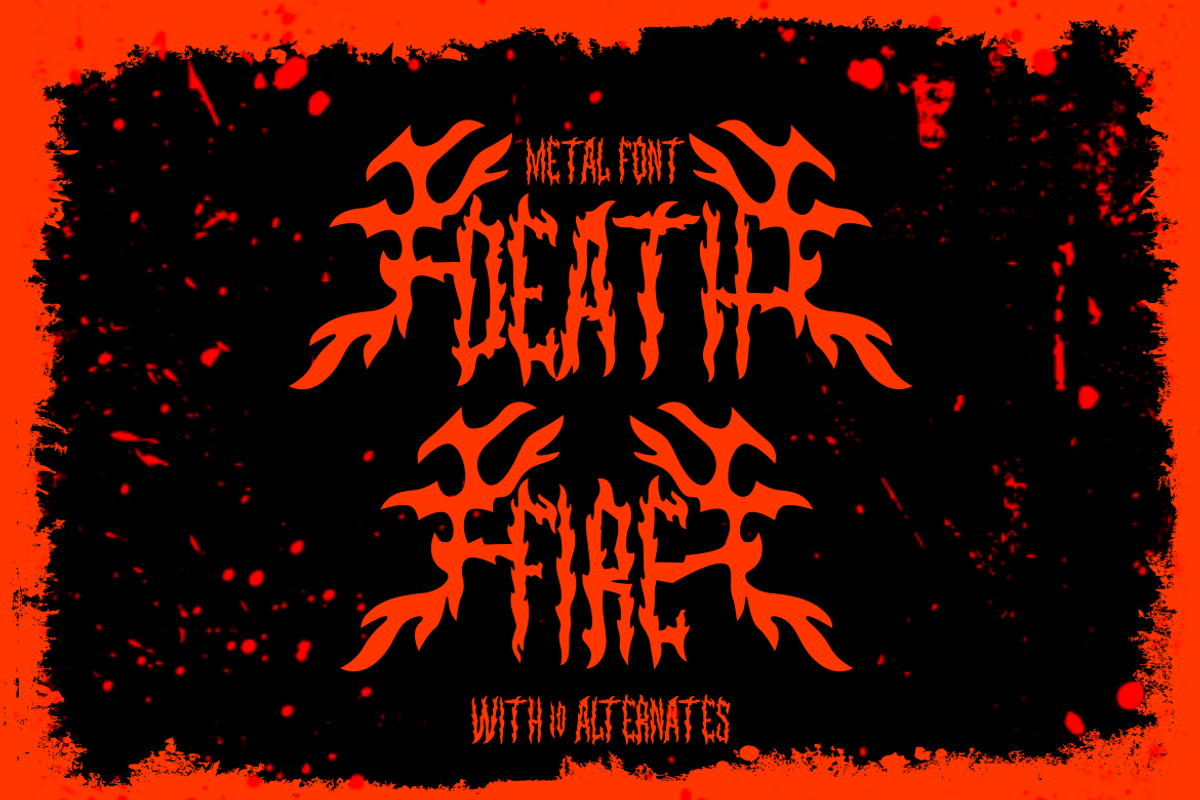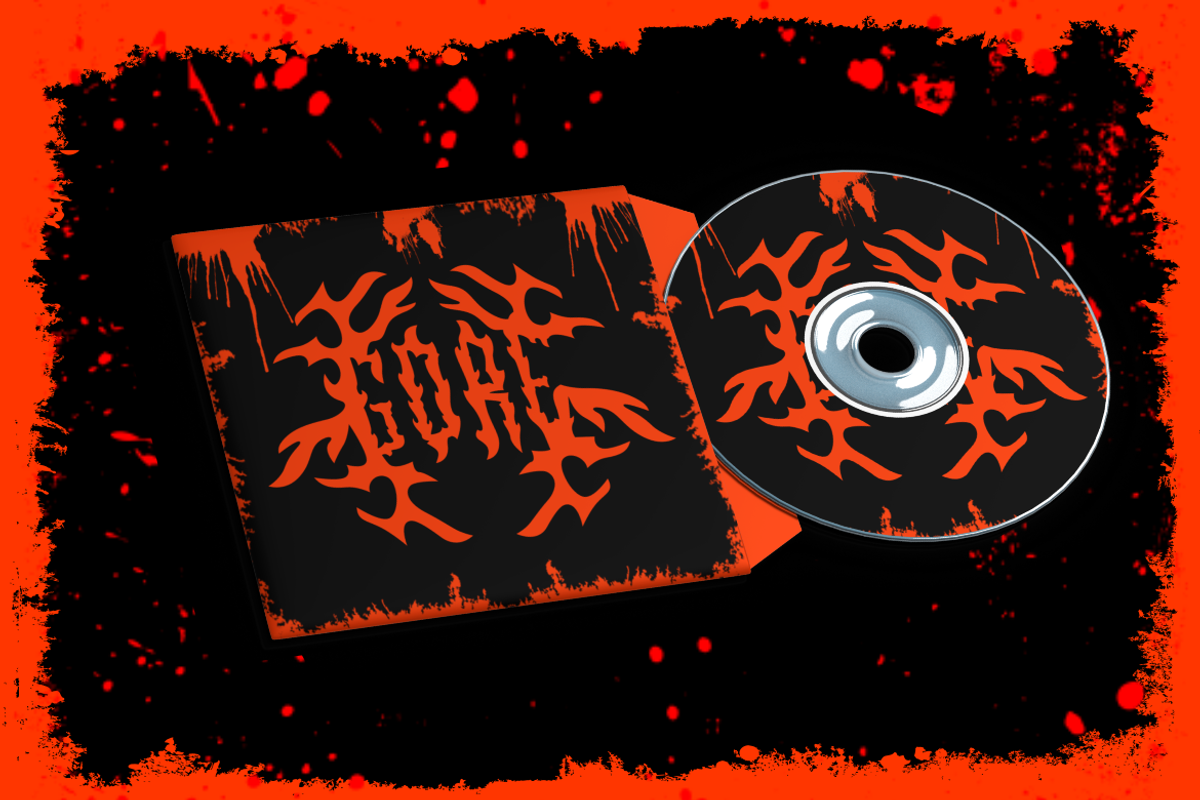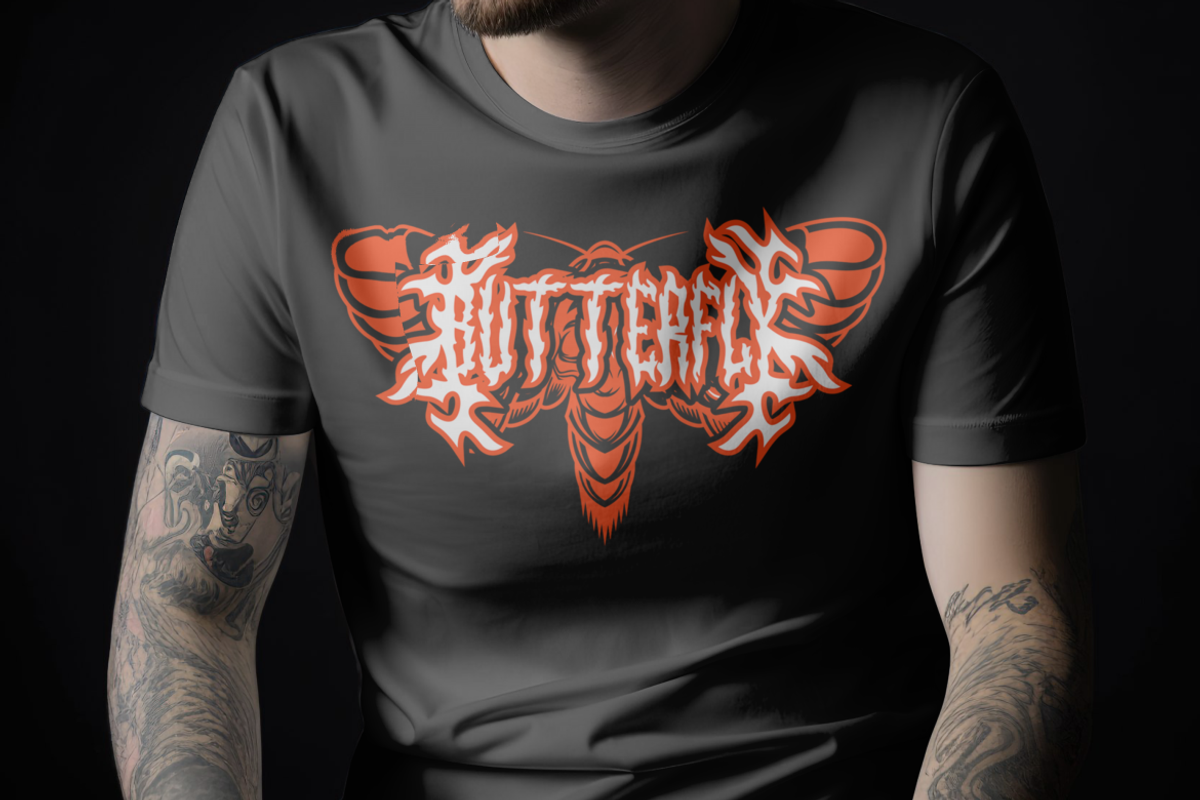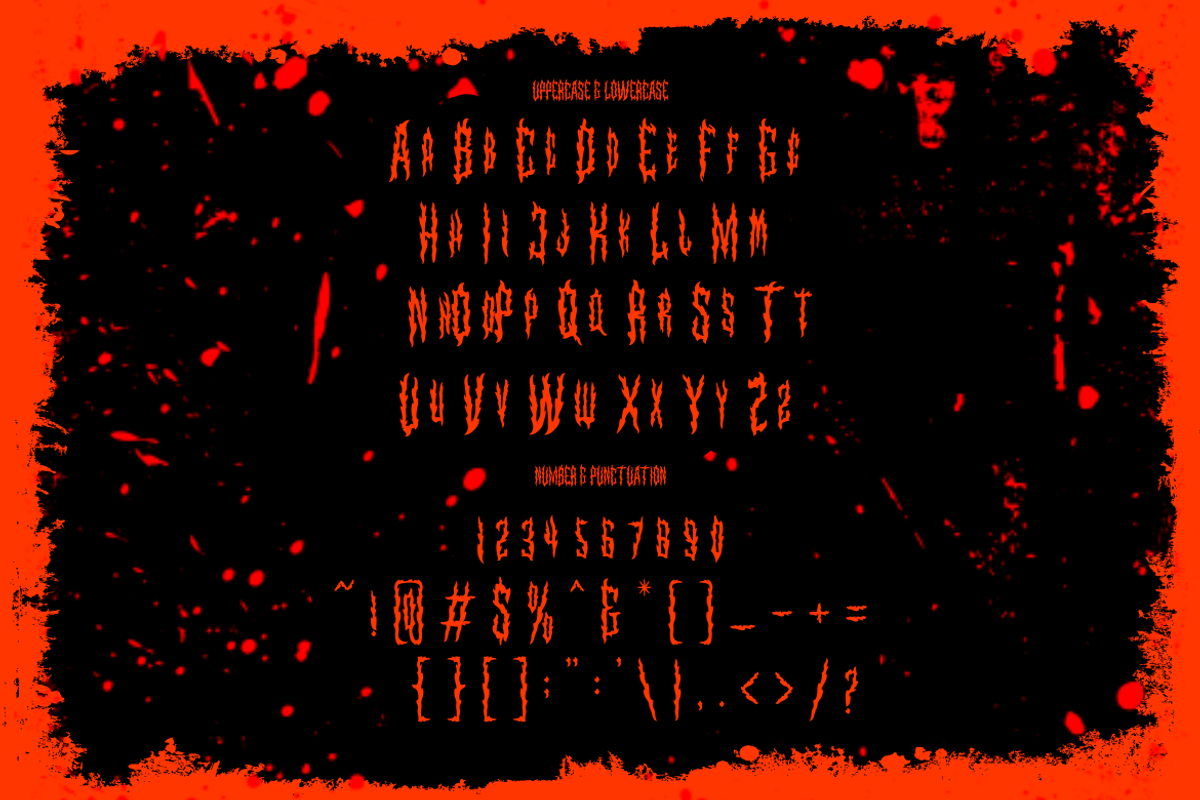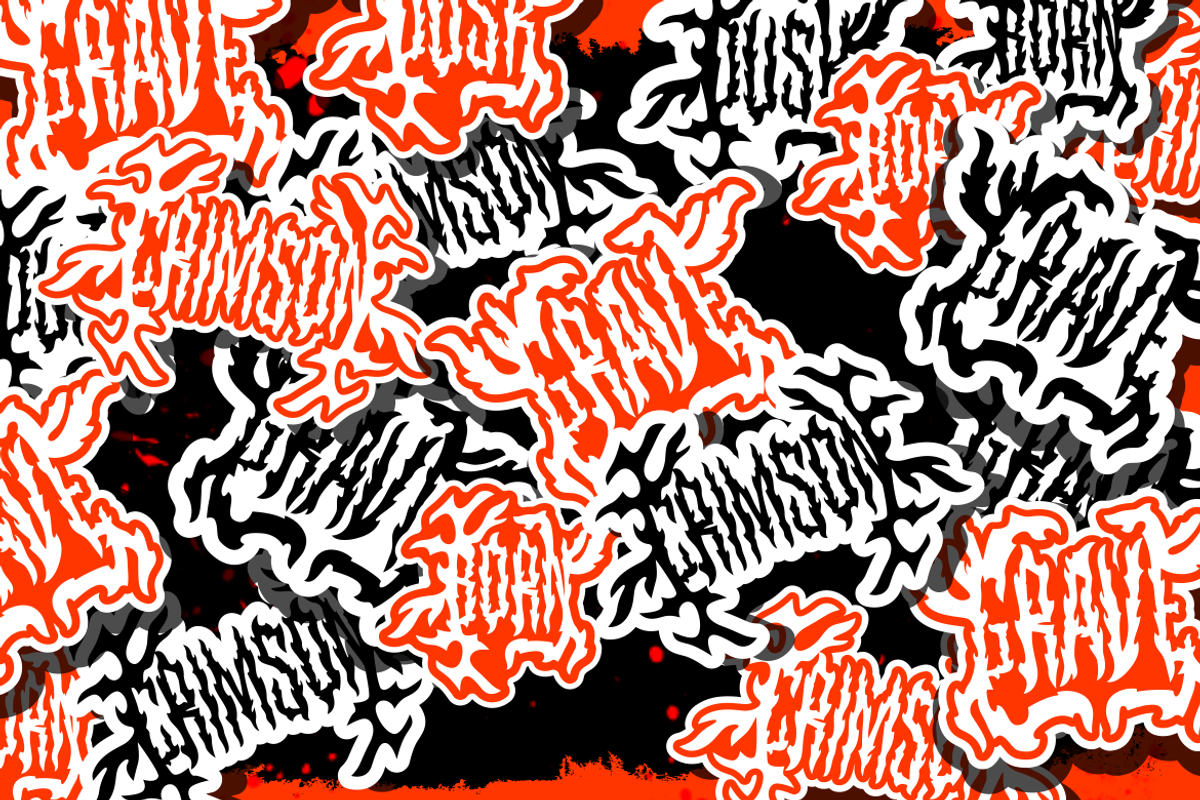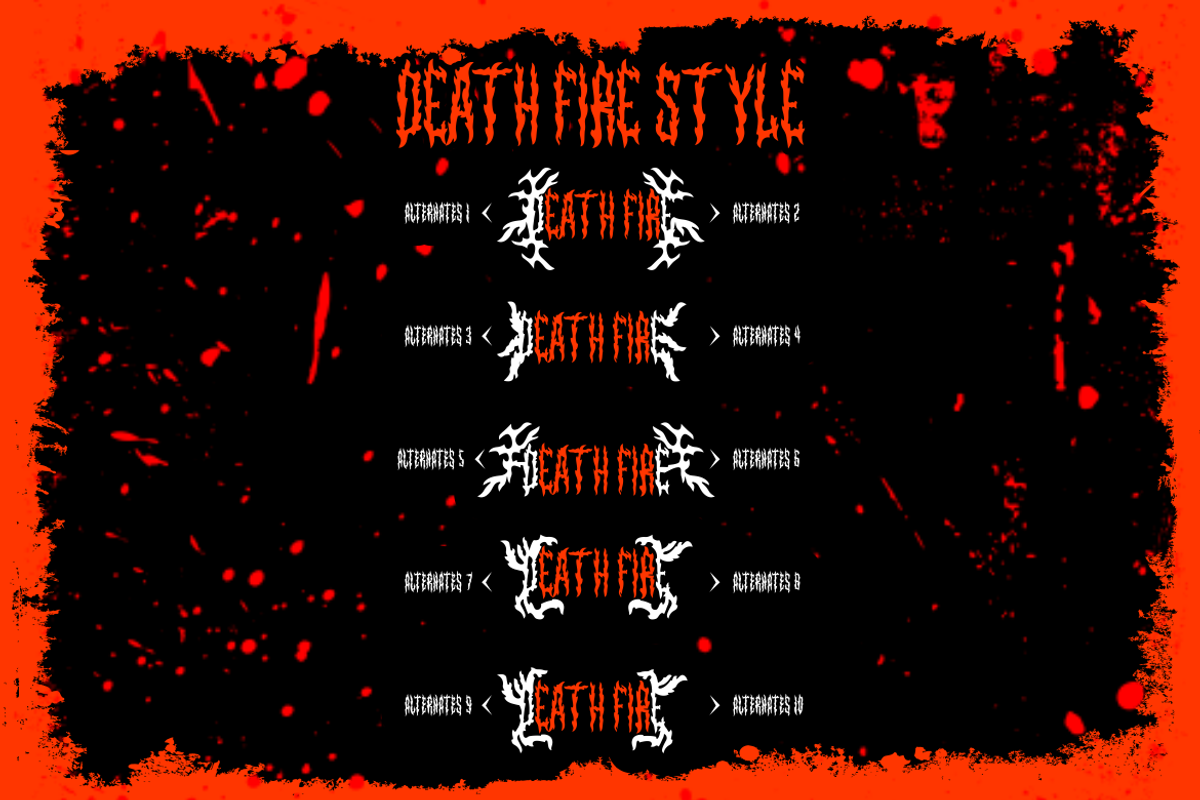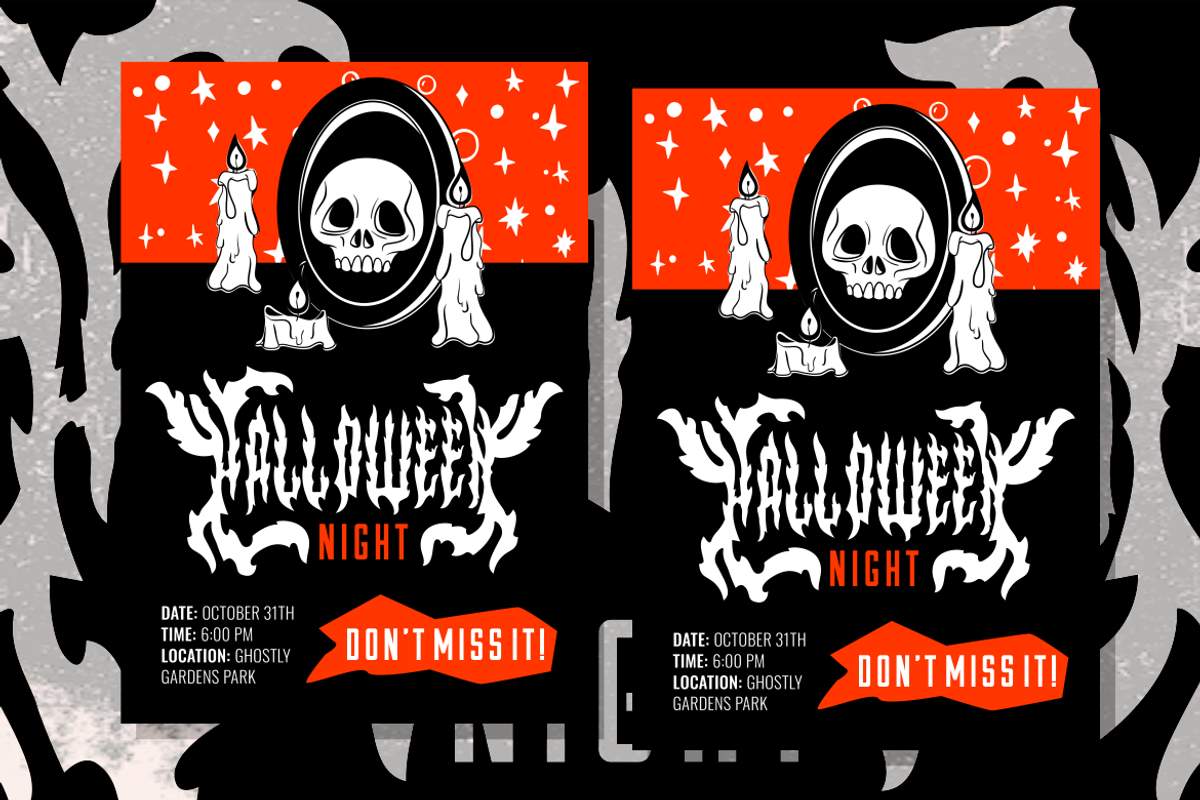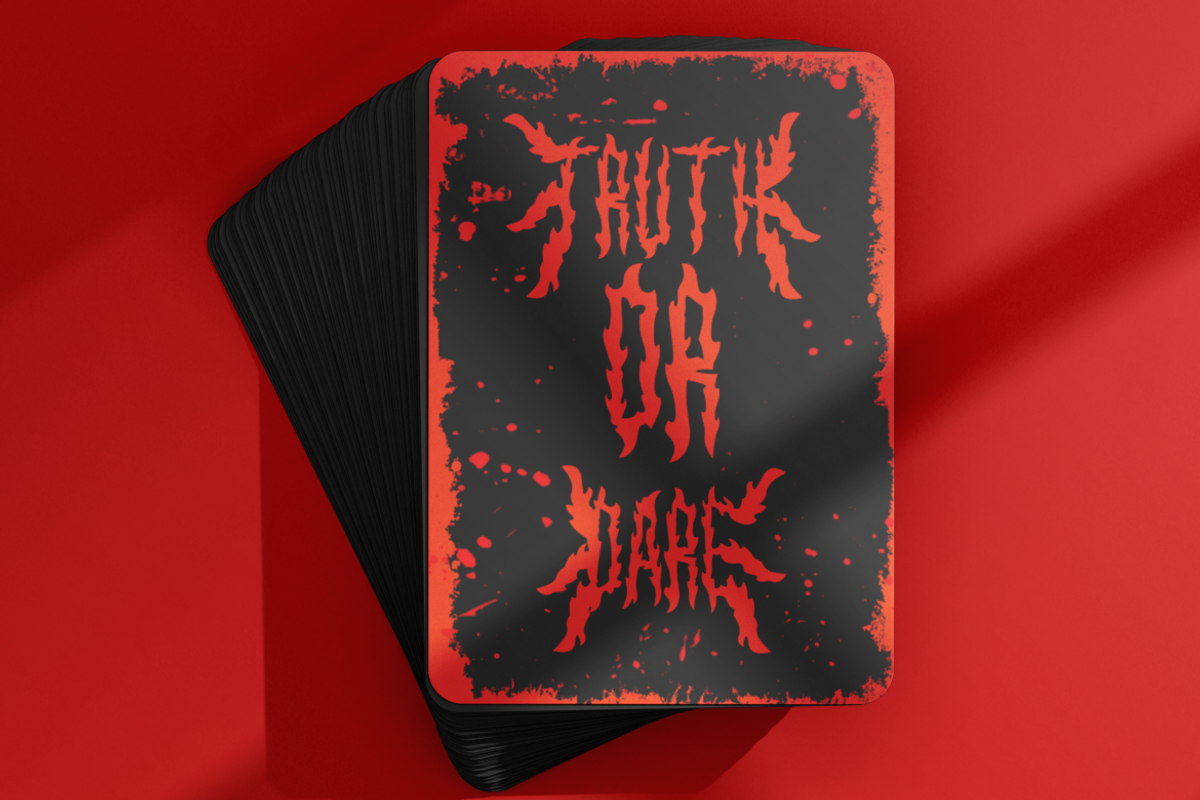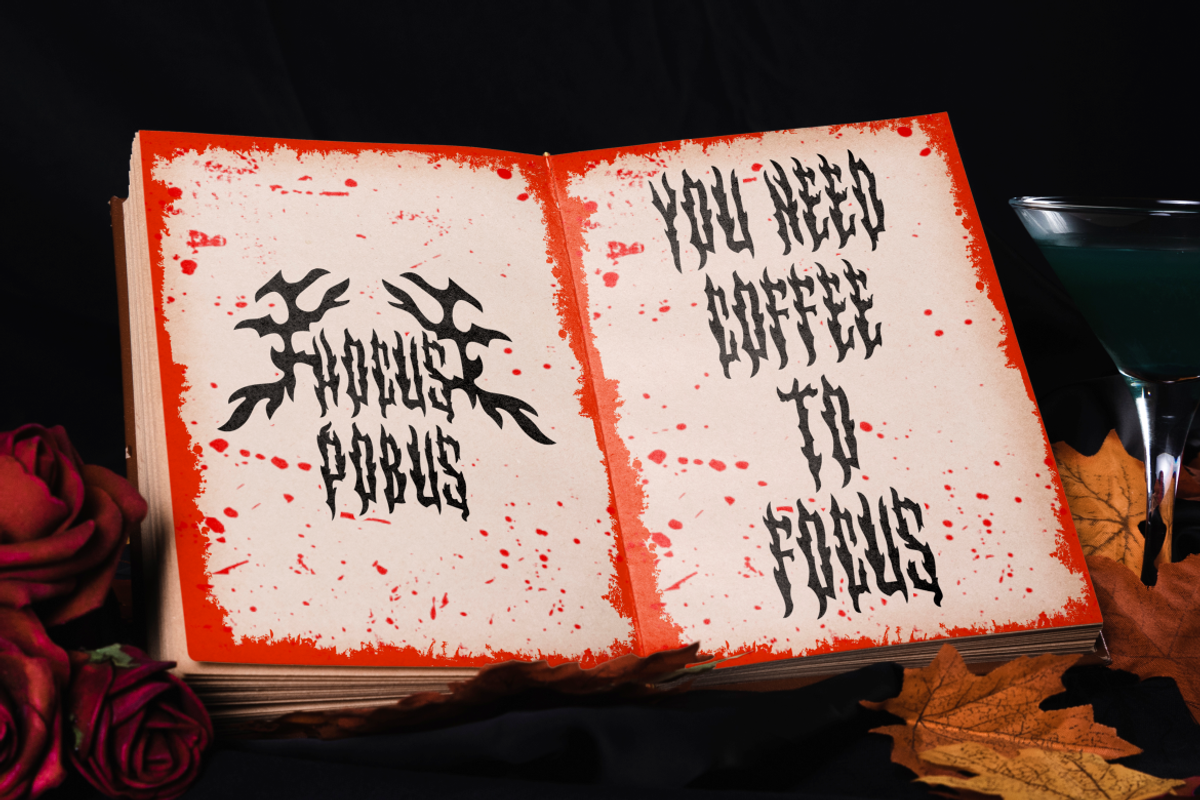
Death Fire - Metal Font
Death Fire - Metal Font is a unique typeface that encapsulates the essence of metal, black metal, and rock culture. This font is meticulously crafted, embodying the raw power and energy synonymous with heavy metal and grunge aesthetics. The letters are forged with intricate details, echoing the black letter style while screaming audacity and boldness. Every character is a masterpiece, resonating with the rebellious spirit of rock and the dark allure of black metal.
Death Fire is not just a font; it’s an experience—a journey through the enigmatic world of heavy sounds and powerful visuals. It’s perfect for logos that need to make a statement, branding that aims to break through the noise, or posters announcing the next big event in town. Bands can etch their name in this font; businesses can adopt its striking presence; it’s versatile yet specific, dynamic yet rooted in its theme.